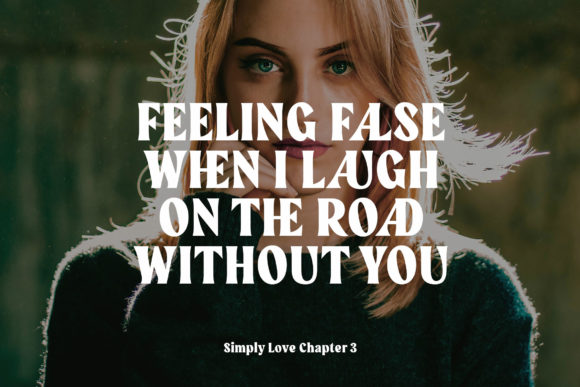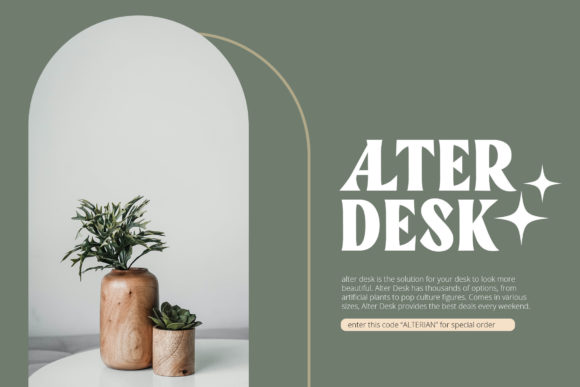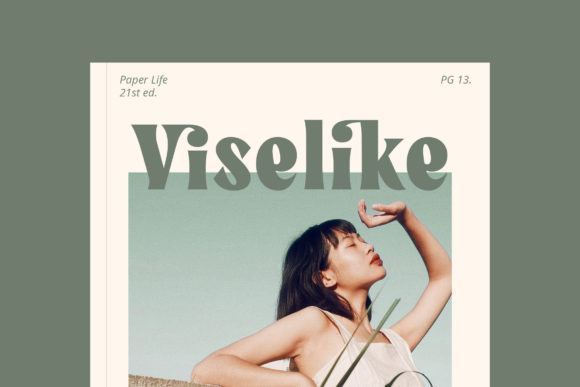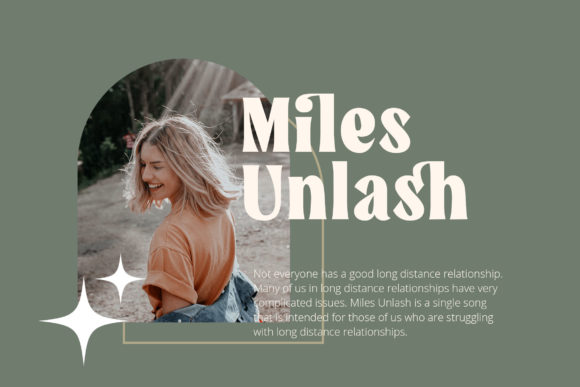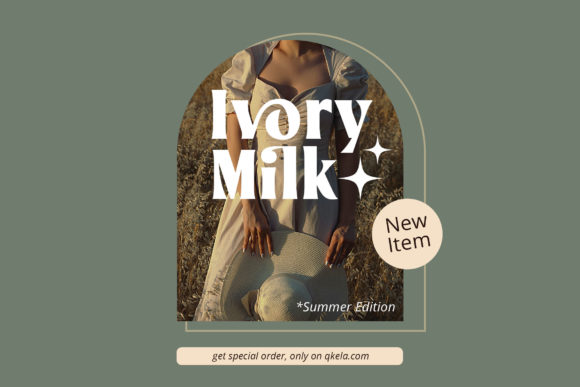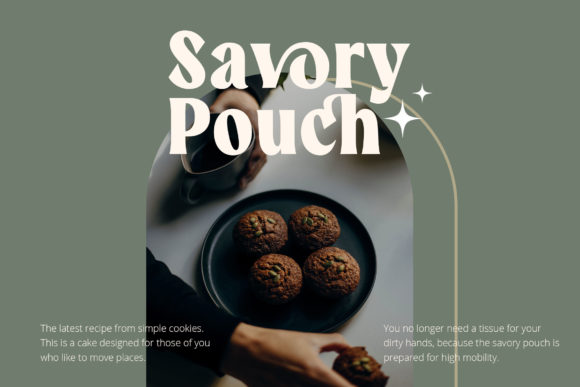
Back to Wilkith Font – Free Download
Introduction to Back to Wilkith Font
Back to Wilkith is an assertive and vintage styled serif font.
It is PUA encoded which means you can access all of the glyphs and swashes with ease .
Key Features of Back to Wilkith Font